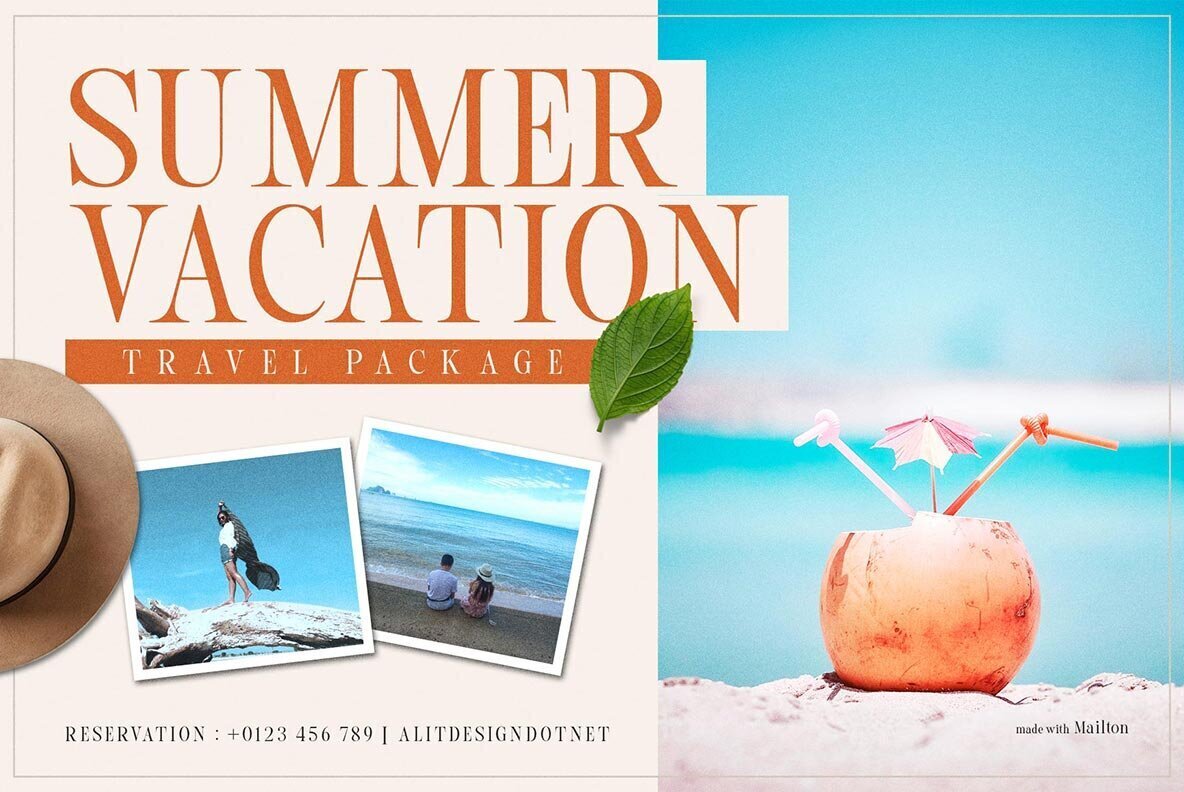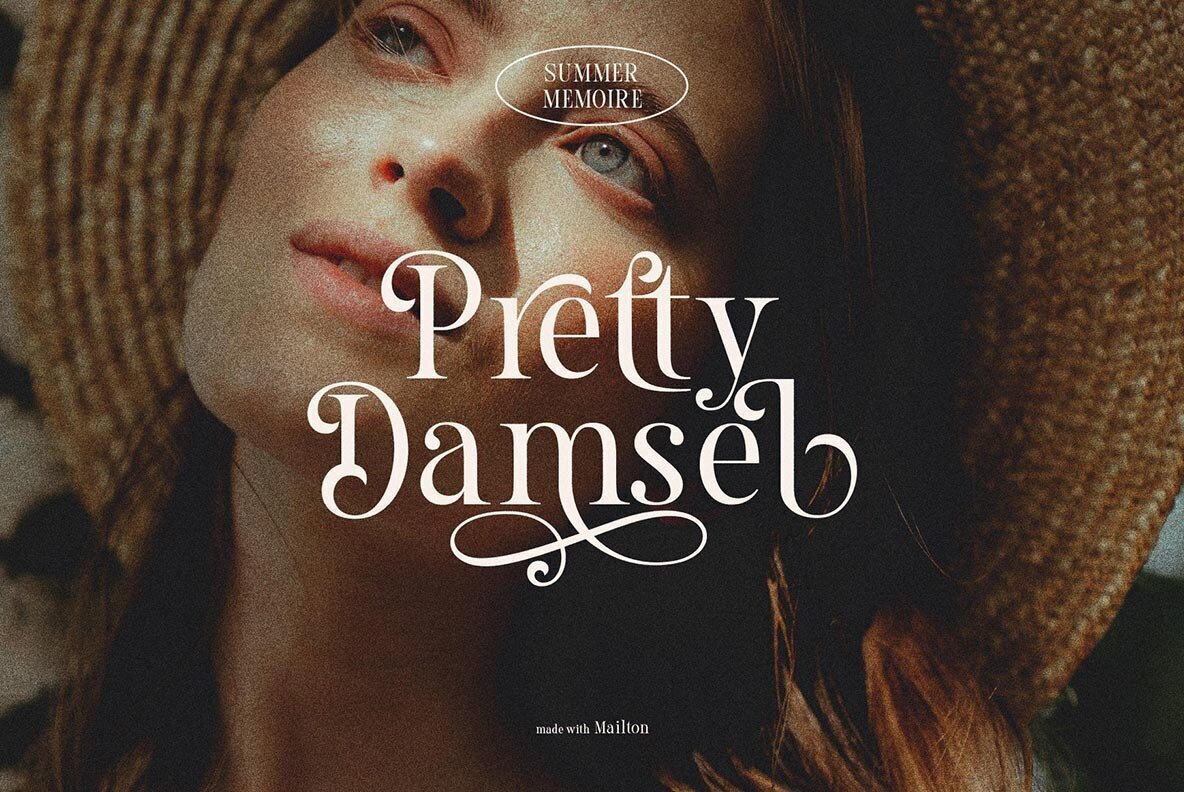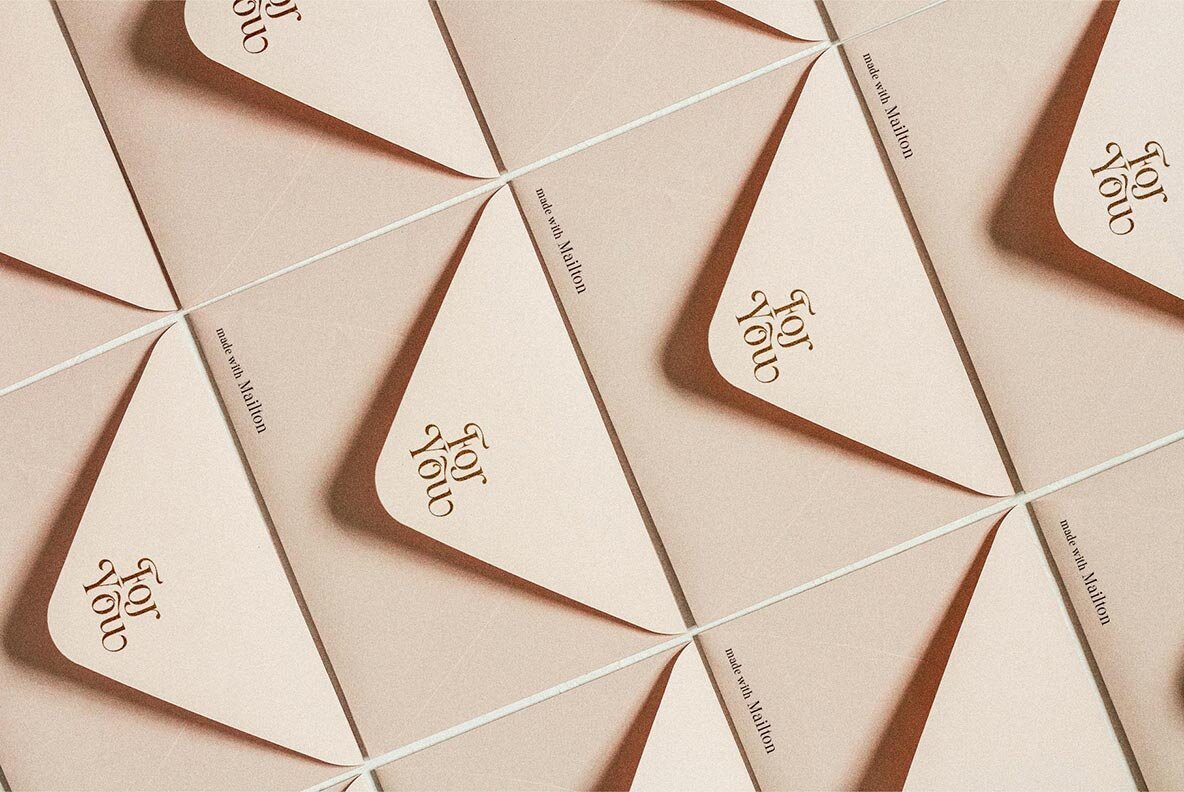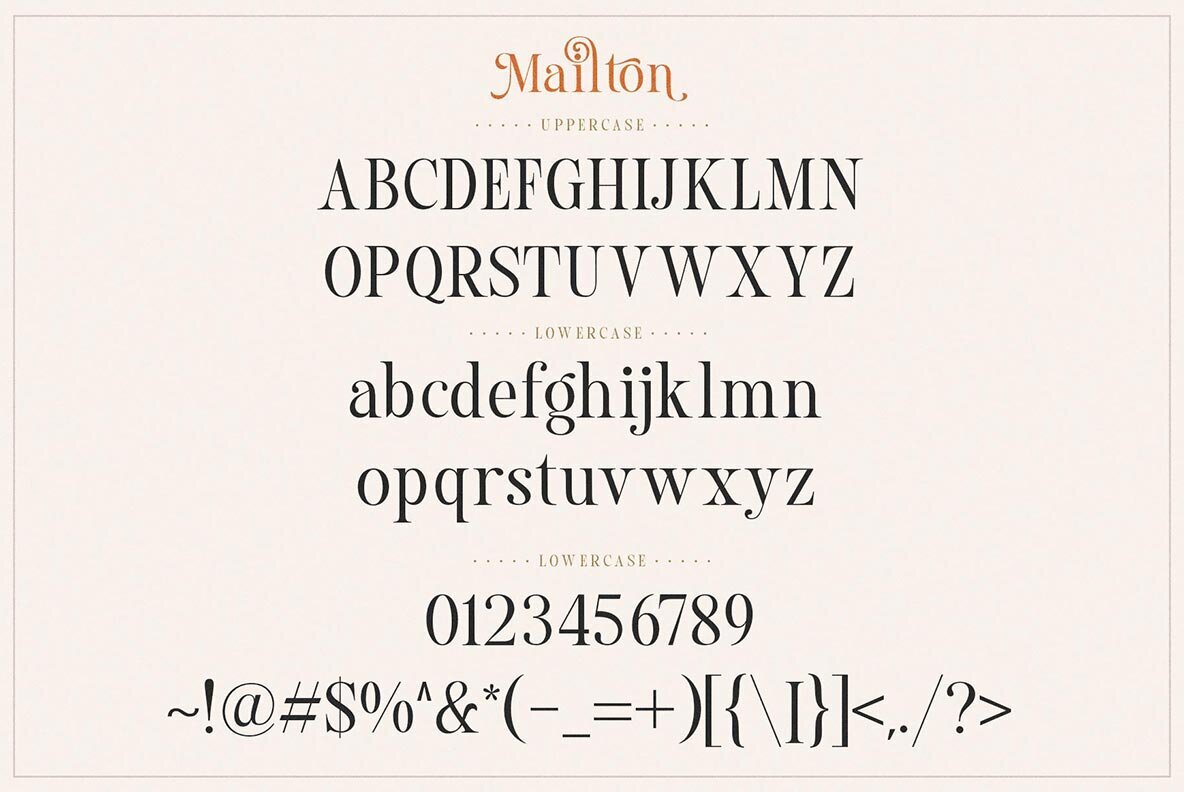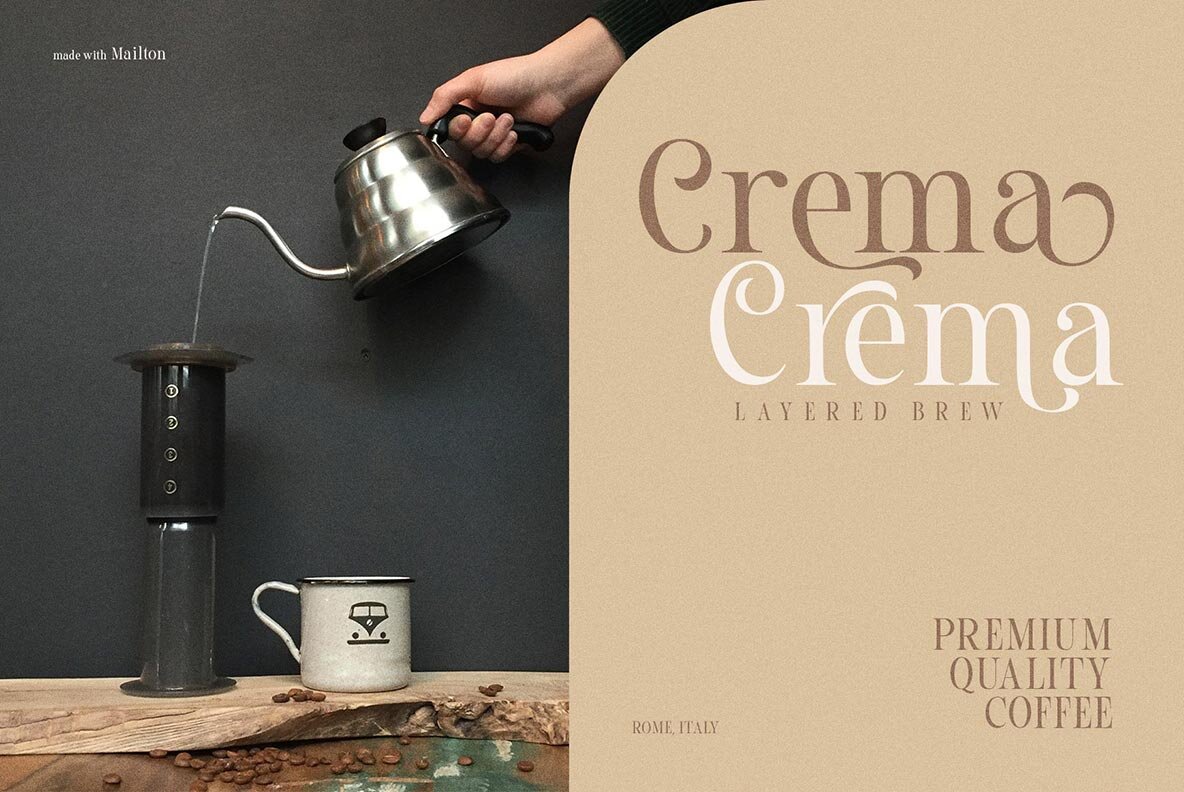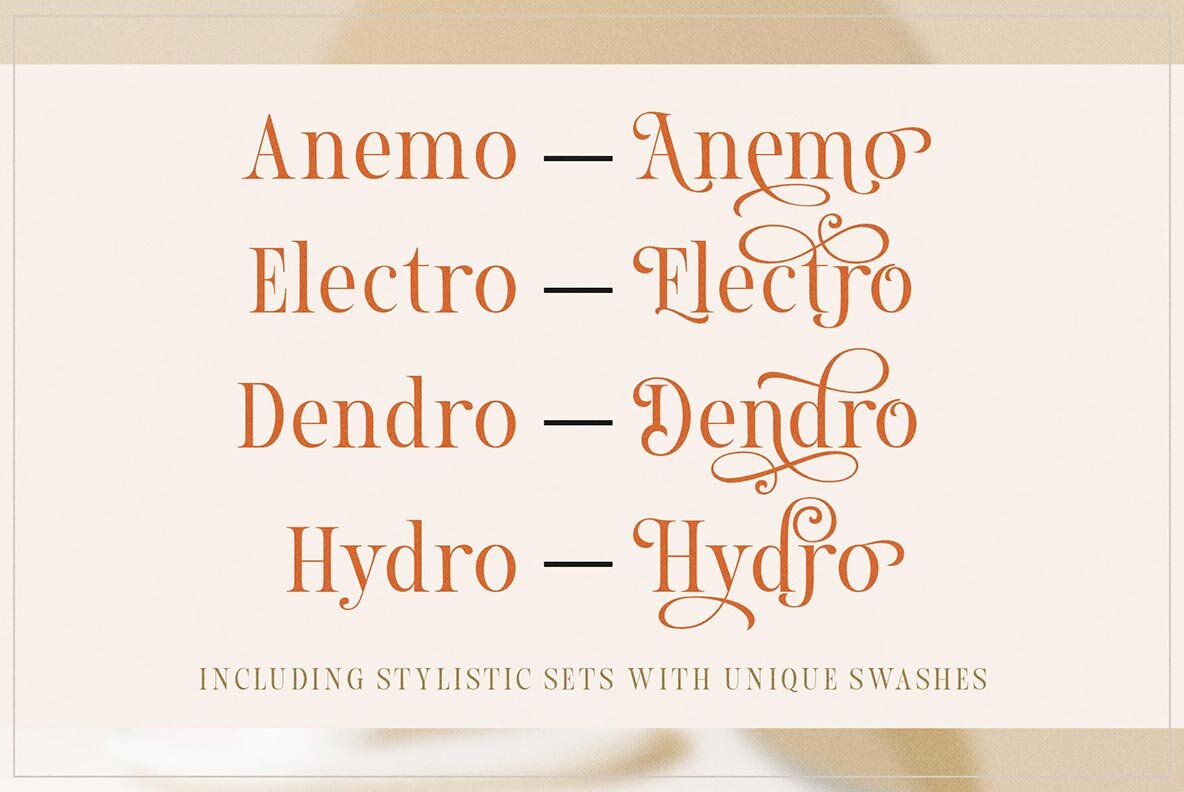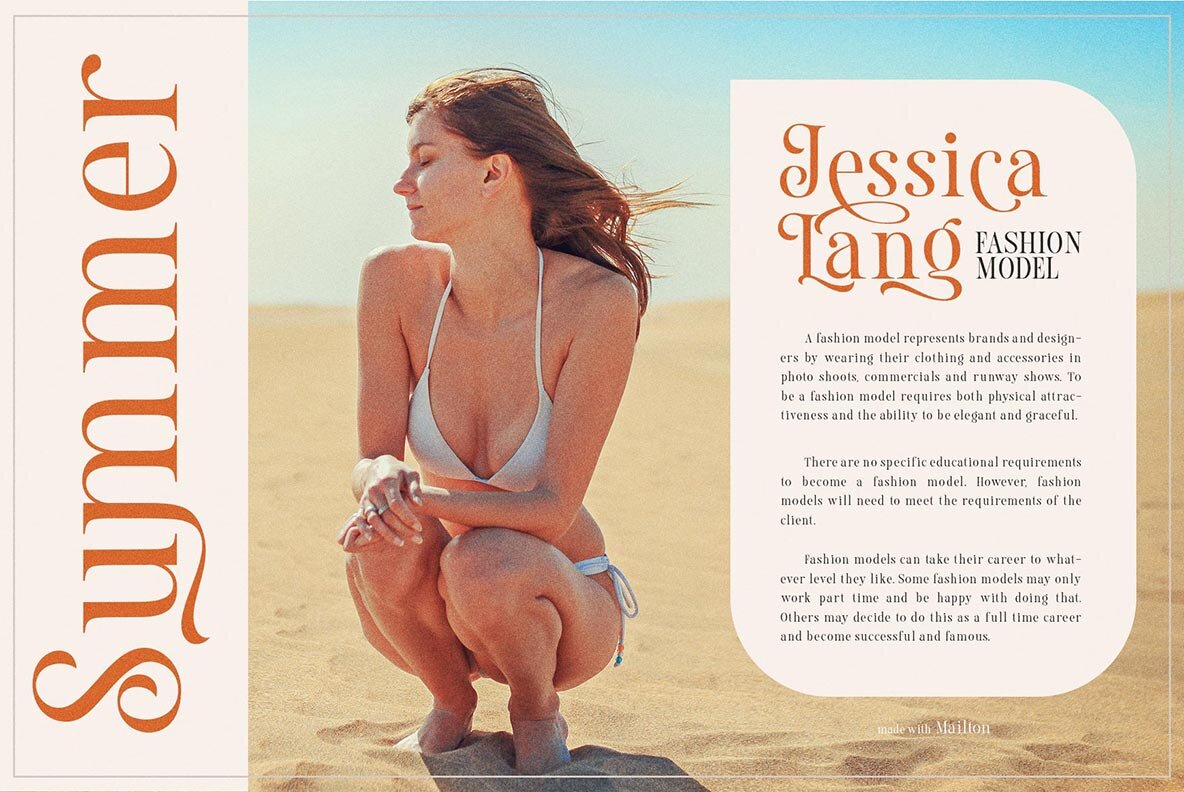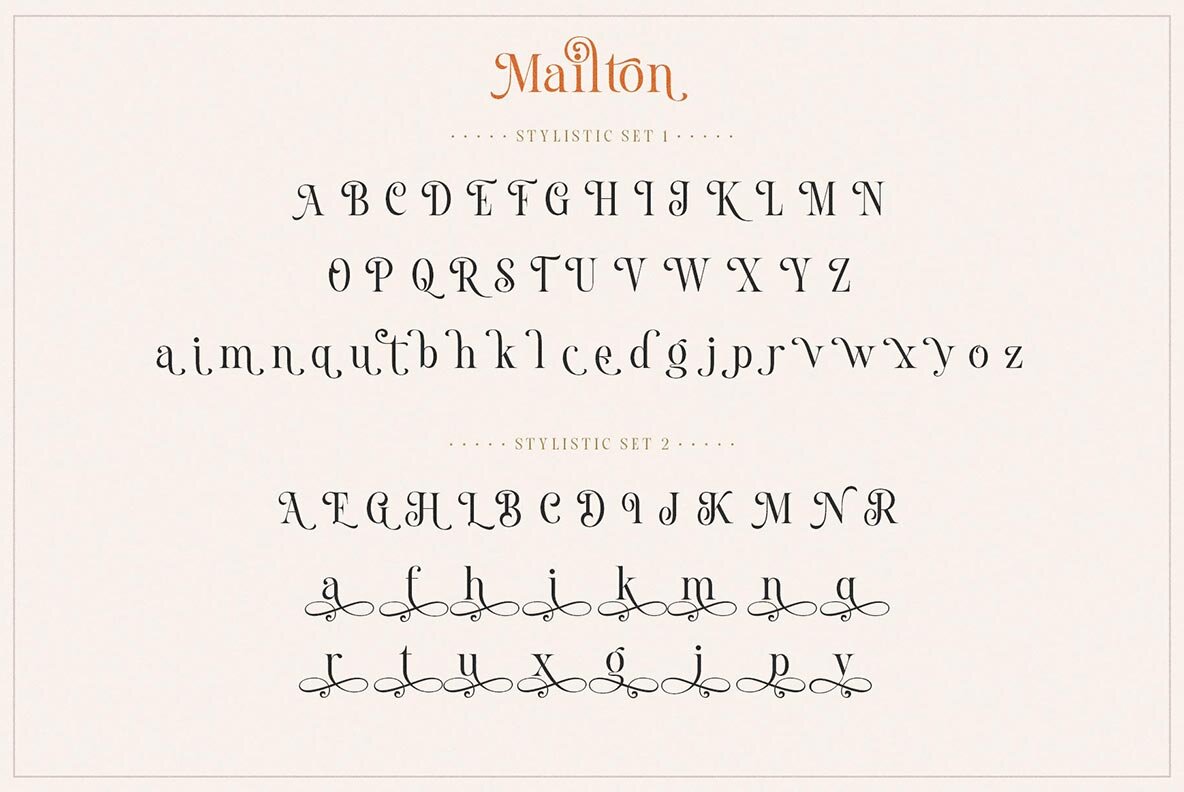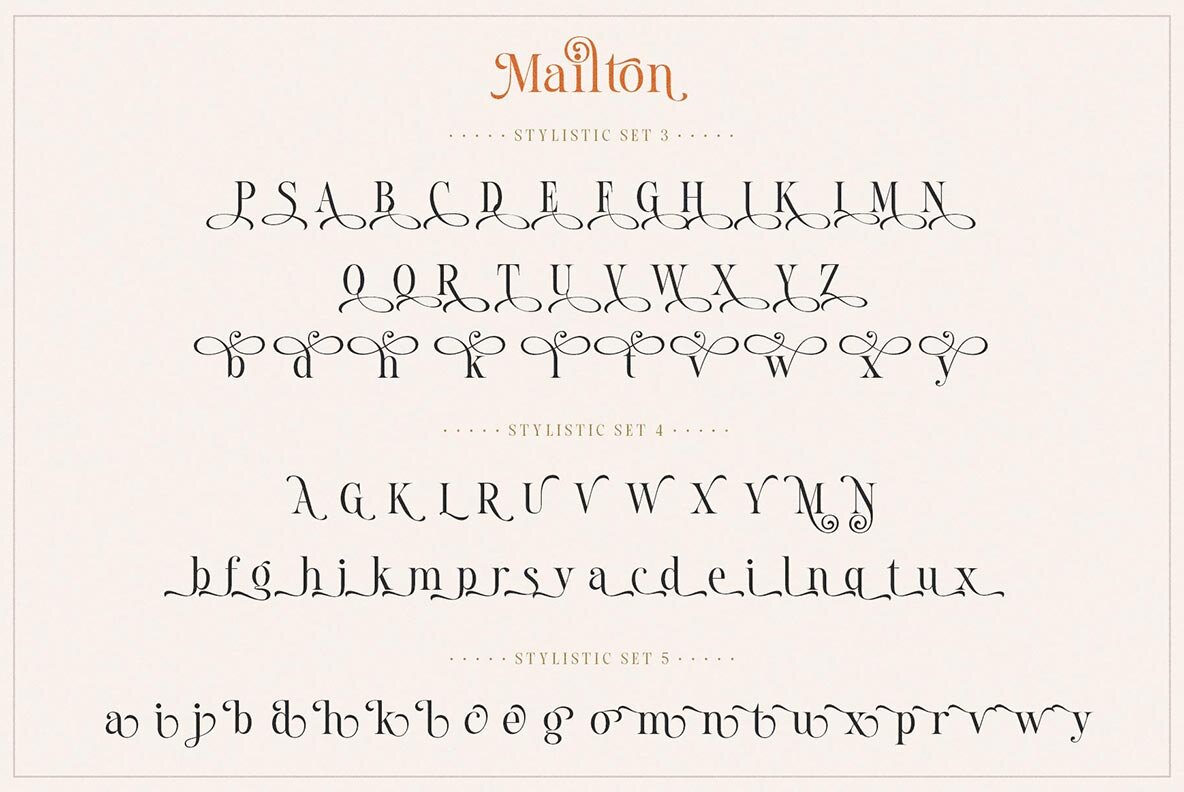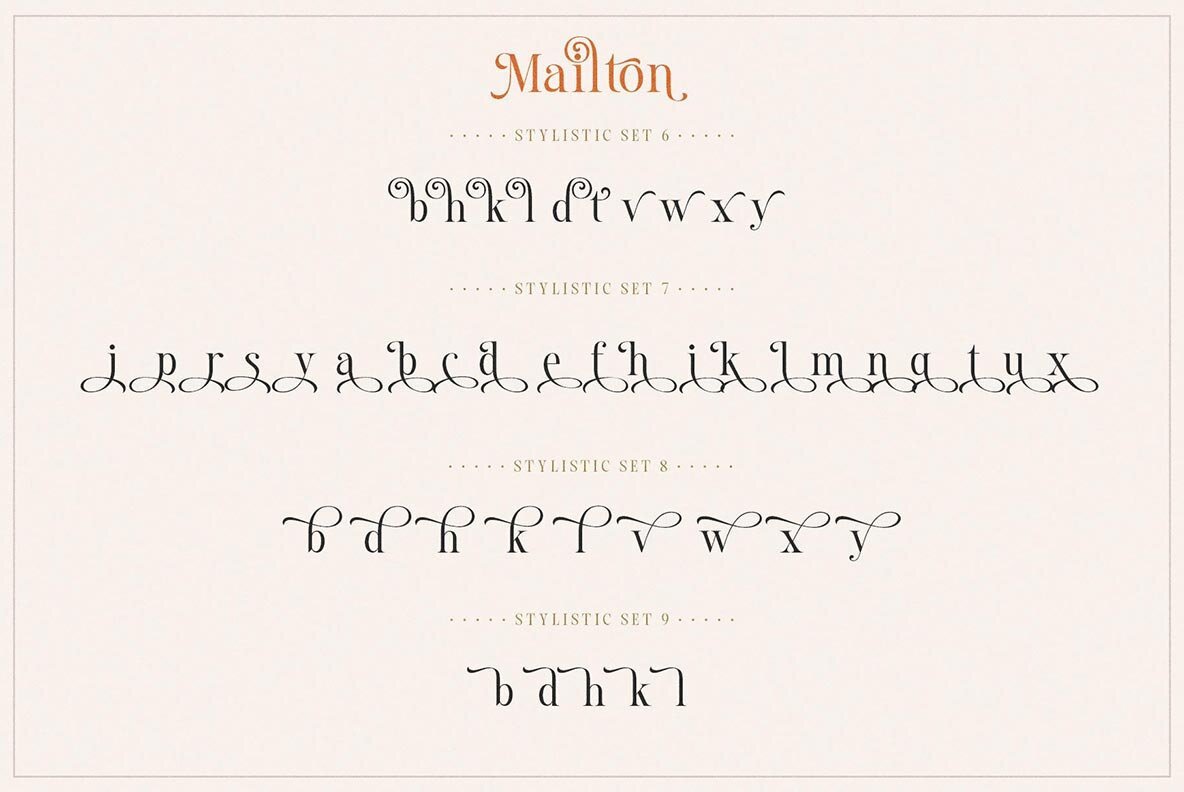
Mailton Font
Mailton Regular
The Mailton Serif typeface stands out with its refined and flowing serif style. Its carefully crafted details result in unique and graceful curves, making it an ideal choice for designs with a sophisticated touch. Versatile and easy to apply, Mailton adapts seamlessly to both design and non-design programs, thanks to Unicode (PUA) support across its many features. For access to its beautiful swashes, ensure your software supports OpenType features, such as Adobe Illustrator, Photoshop, InDesign, or Corel Draw. If lacking a Glyphs panel, additional swashes font files can be installed to explore Mailton's full potential.Mailton: Elegant Serif Typeface with Smooth Curves